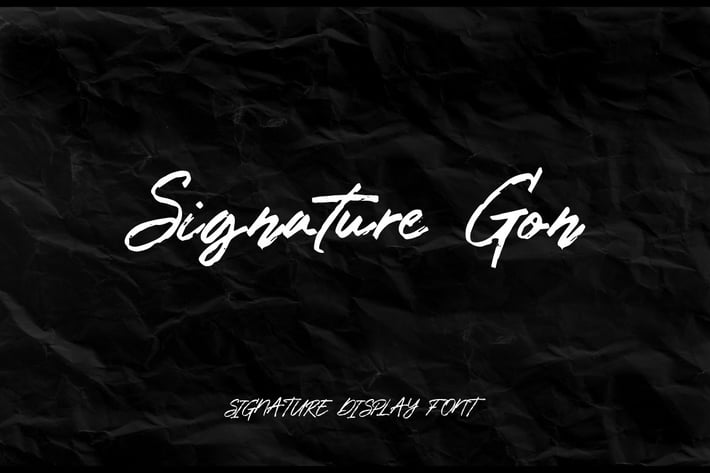
Signature Gon - Signature Display Font
Hello! Signature Gon is a simple handwritten font.
Signature Gon can be used in any works such as flyer, book title, advertisement, social media content, logo and many more.